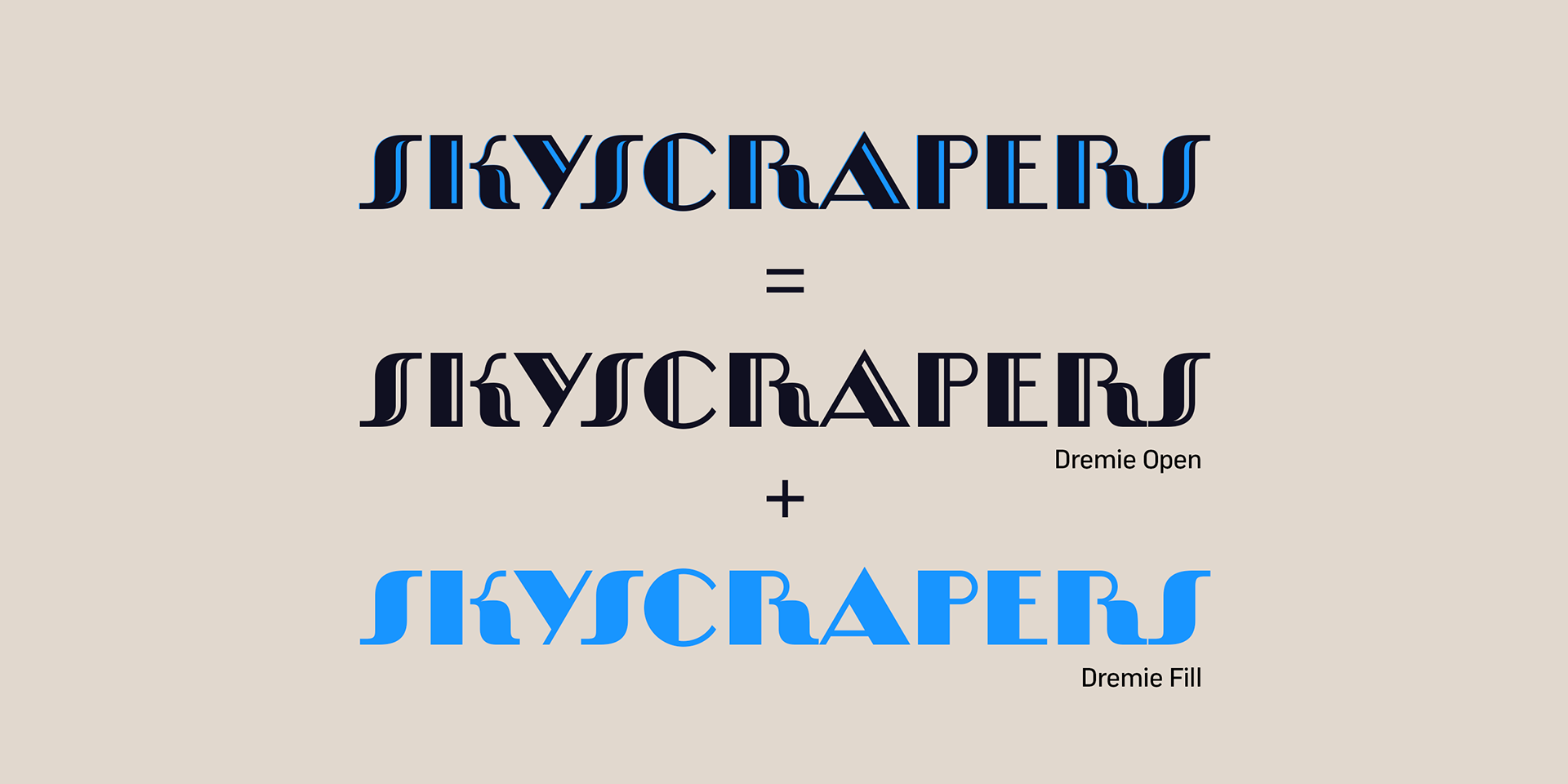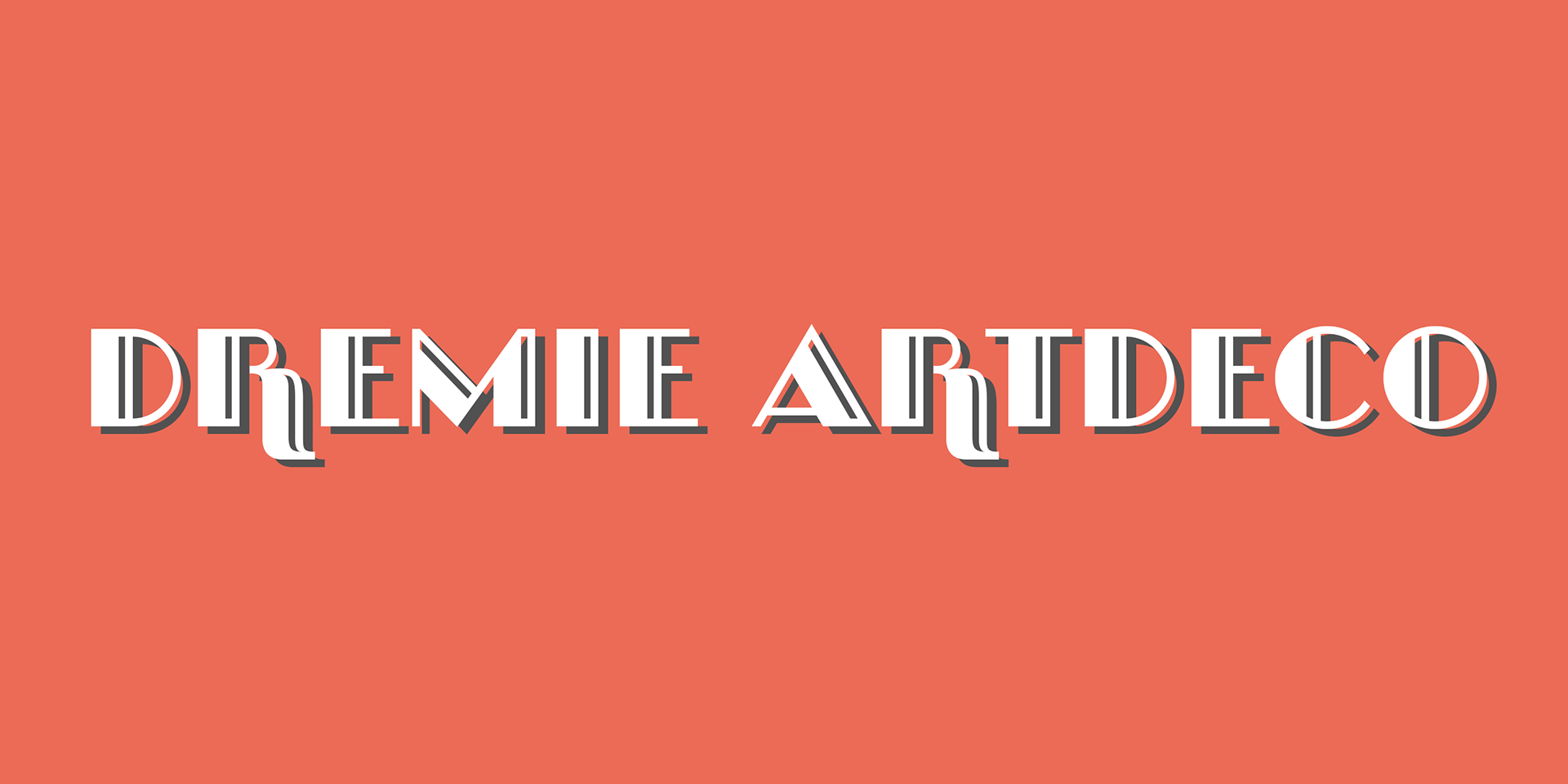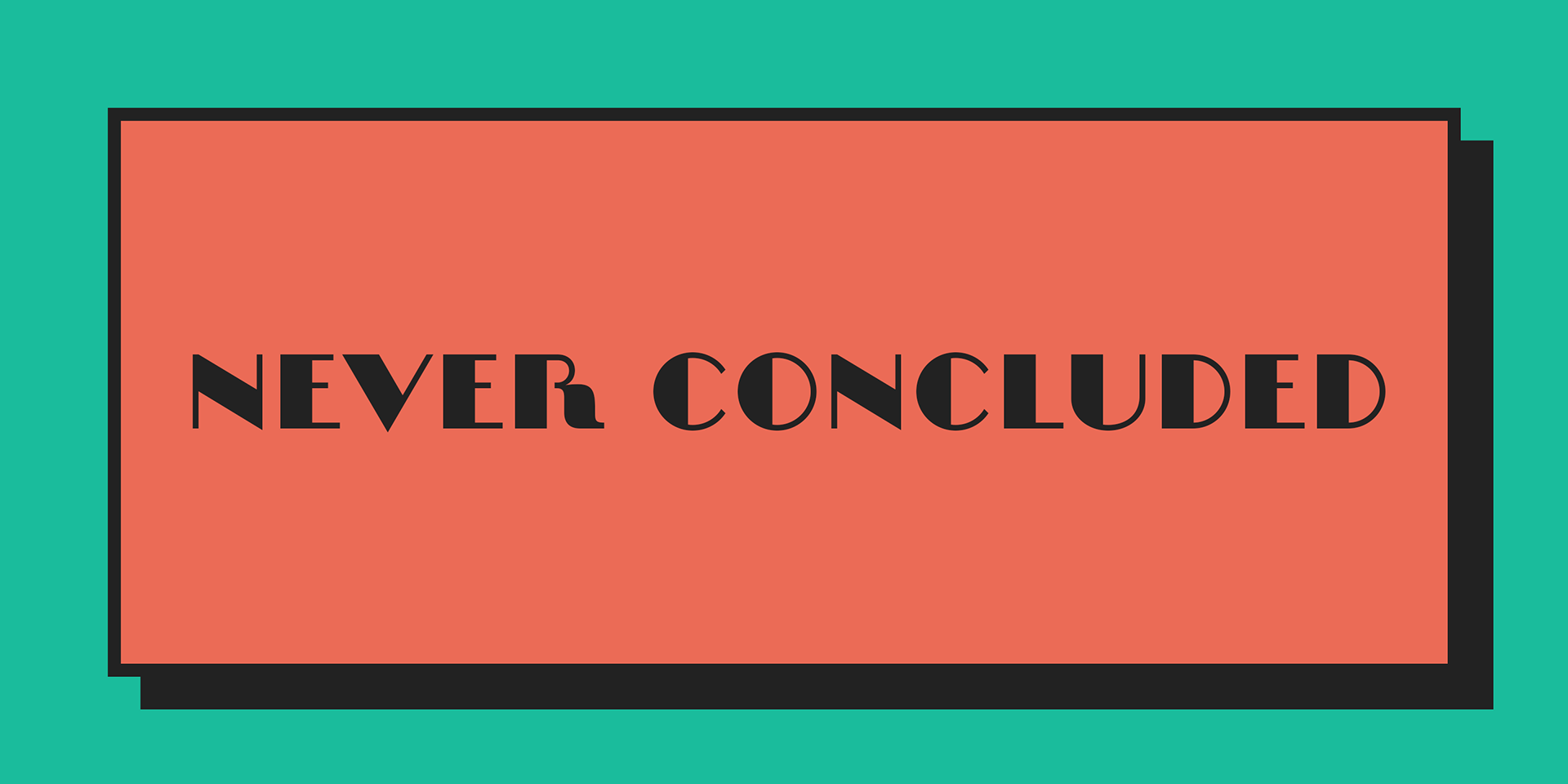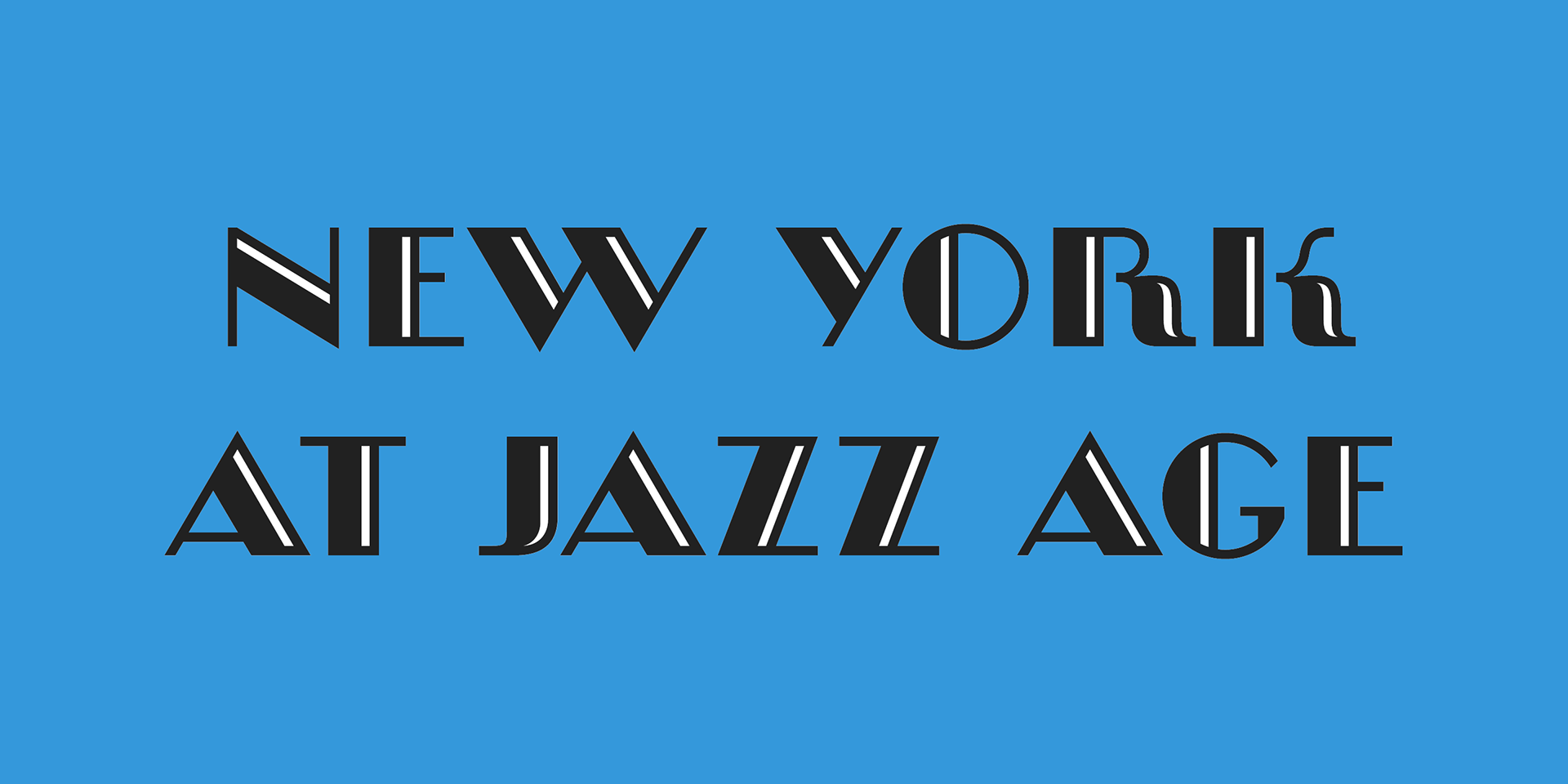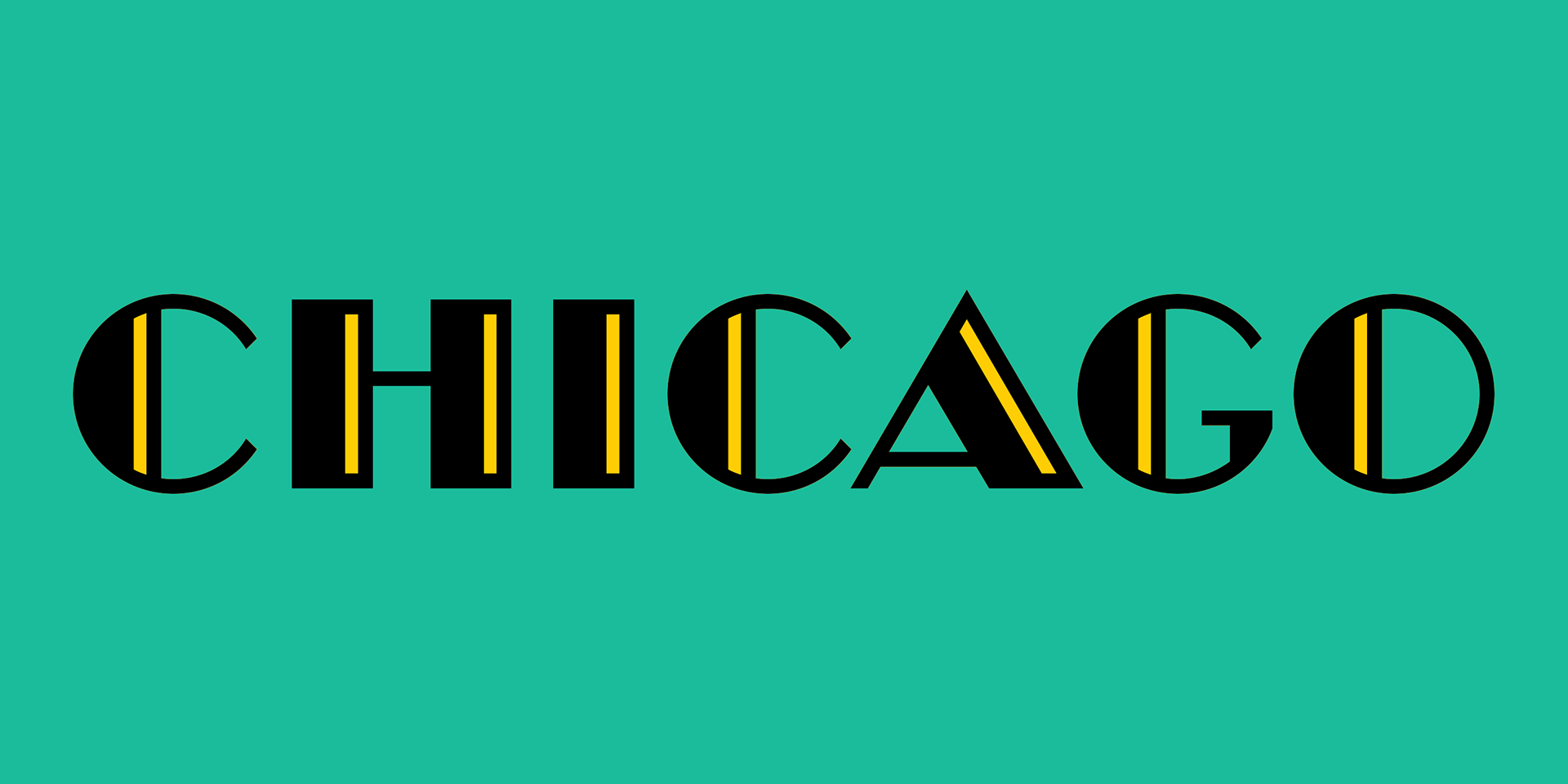
Dremie
A basic Art Deco-style font with simple, crisp edges, ideal for titling and display design.
Use Open and Fill styles in layers to create striking color effects and visual depth.